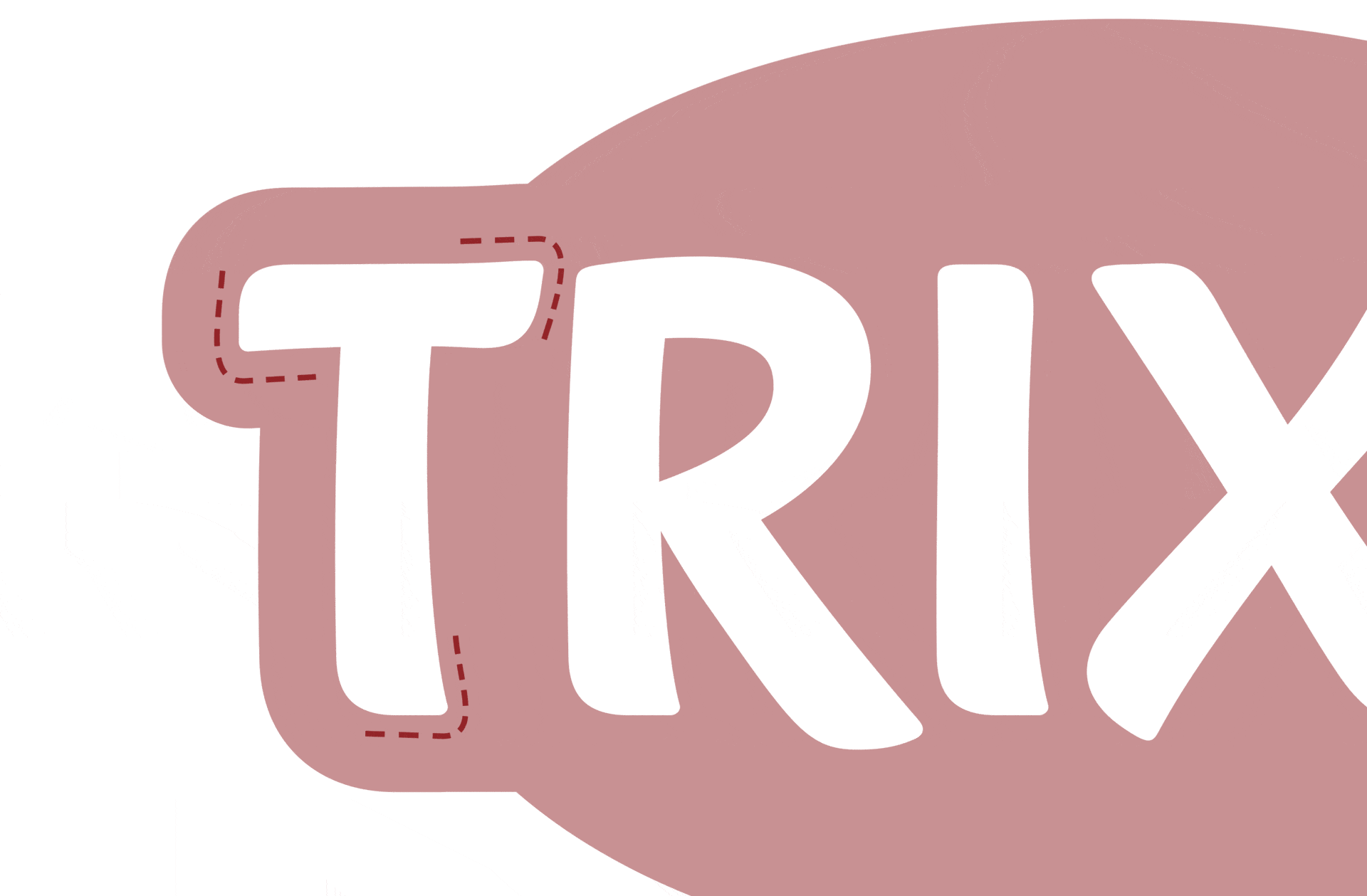
Trixie
Modernization of the logo
Case study: Modernization of Trixie’s logo – New logo in use
The new logo’s primary use is in product labeling on a wide variety of materials and via different types of reproduction – as a rubber label, on fabrics, metals, wood, etc.; printed, embossed or die-cut; negative and positive.
Trixie was founded in Flensburg in 1974 by Bonnik Hansen from Denmark. The company supplies pet accessories to specialist retailers in over 100 countries. The range includes around 6,000 articles for dogs, cats, birds, small animals and reptiles. Trixie employs around 600 permanent staff and over 100 temporary workers.
A
s part of a strategic campaign to revamp the brand identity, the entire corporate design, including the packaging and logo, had to be redesigned. The company turned to Fontwerk with the brief to modernize it. Previously, a “blue roof” had dominated the entire range, but this was now to be replaced. This change meant a far-reaching change at the POS, so the logo had to be more restrained and revamped.
Case study: Modernization of Trixie’s logo – Old logo in use
Old logo and the “blue roof”, that had dominated the entire range
The new packaging concept meant that any future logo had to work on an array of different backgrounds. The logo is used across both printed and digital communication, but its primary use is in product labeling on a wide variety of materials and via different types of reproduction – as a rubber label, on fabrics, metals, wood, etc.; printed, embossed or die-cut; negative and positive. It is often not given much space and sizes of around one centimeter are often the norm.
The formal and aesthetic requirements were clearly defined by Trixie. The new logo was to be more modern and simpler, remain concise and – like the overall appearance – convey warmth and trust. This would make it an ideal fit for the emotional industry, in which pets have played an increasingly important role for years.
As part of the brief, the colors red (for the background and text outlines) and white (as the type color as well as the rough shape of the ellipsis) remained untouched and ideally the spelling was to be in capitals. Internally, Trixie had already tested their own ideas and discovered that the elliptical shape was visually off when the last letter was larger than the first. With this exemplary briefing, we were ready to go.
Fontwerk’s agile structure ensures that we put together the ideal team for each project and if needed, we can draw upon experts from our international network. When approaching this project, we also focused on Trixie’s target group for this project in order to better meet their specific needs. The target group is three-quarters female and covers a broad age range, with buyers aged between 28 and 55. Bearing this in mind, we completed the team with type and graphic designer Franziska Weitgruber.
Case study: Modernization of Trixie’s logo
We developed four logo variants.
Together, we initially developed three logo variants, followed by a fourth in the next iteration. Two of these featured the two ‘i’s as minuscules. The implied eyes provide that “certain extra something and the emotion” that Head of Marketing Claudia Menzel wanted at the start of the project.
All the designs were characterized by a slightly curved basic structure (dynamism, liveliness), a subtly increasing line thickness (stability, confidence), a slightly upward line (warmth, emotionality), the absence of outlines and a simplified background (simplicity, conciseness and modernity).
Case study: Modernization of Trixie’s logo – Details
We put all the designs into real application examples and presented them to Trixie. A favorite quickly emerged and was refined and honed and then handed over to the client as a vector version within the agreed tight timeframe. The logo has now been fully implemented across the brand and has been well received by customers. Claudia Menzel explains:
As the removal of the ‘blue roof’ has brought about a major change, particularly in the packaging sector, it was important to retain the basic features of the red ellipse. But in a reduced, more modern and emotional form. The Fontwerk team achieved this very well with their individually created letters. They took our project team on a journey and explained clearly in the presentations how the designs were created. That helped a lot in the decision-making process. The logo works extremely well on all media and we are very happy with it.
Case study: Modernization of Trixie’s logo – New logo in use
Case study: Modernization of Trixie’s logo – Trixie celebrated its 50th anniversary and introduced its new identity at Interzoo in Nuremberg, the world’s leading trade fair for the pet industry
Trixie celebrated its 50th anniversary and introduced its new identity at Interzoo in Nuremberg, the world’s leading trade fair for the pet industry
Case study: Modernization of Trixie’s logo – Trixie celebrated its 50th anniversary and introduced its new identity at Interzoo in Nuremberg, the world’s leading trade fair for the pet industry